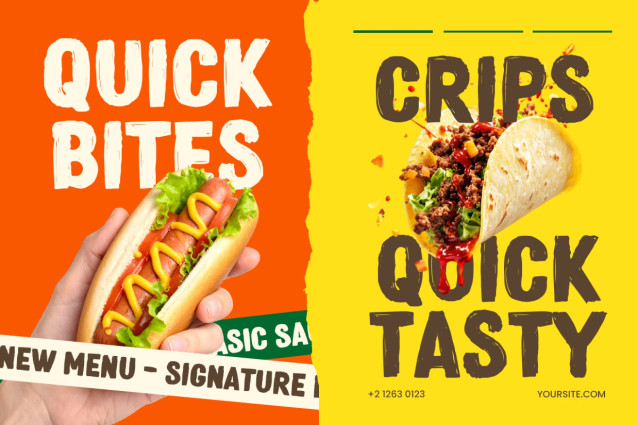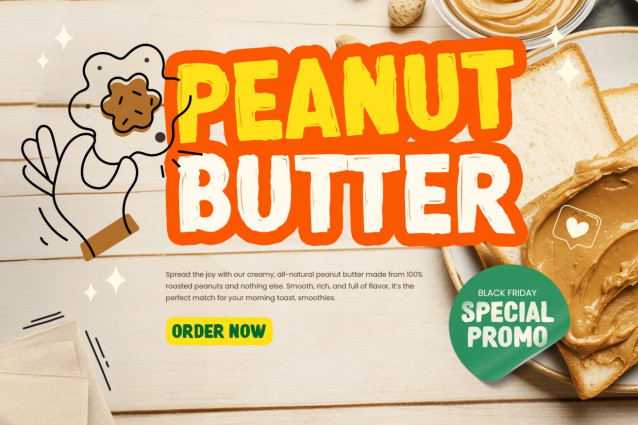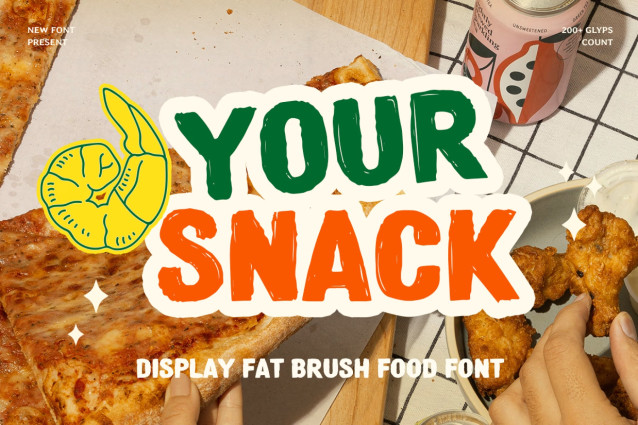
YOUR SNACK is a display fat brush food font designed to bring a delicious, energetic, and handcrafted personality to your designs. With its bold strokes, expressive brush texture, and playful character, YOUR SNACK creates a fun visual style that instantly grabs attention.
Perfect for food branding, restaurant logos, cafe menus, packaging, product labels, advertisements, and social media content, YOUR SNACK adds a tasty and memorable touch to any project. Its thick letterforms and dynamic brush style make it ideal for brands that want to feel friendly, fresh, and full of personality.
Whether you are creating snack packaging, beverage branding, food posters, promotional materials, or lifestyle graphics, YOUR SNACK delivers a bold and appetizing look. This font combines handmade charm with modern display typography to help your brand stand out in a competitive market.
Bold brush letterforms with a delicious handcrafted feel
Perfect for food branding, packaging, and restaurant designs
Playful display style with strong visual impact
Ideal for menus, logos, labels, and promotional graphics
Includes uppercase, lowercase, numerals, and punctuation
Great for print, digital, and social media projects
OpenType features for creative typography flexibility